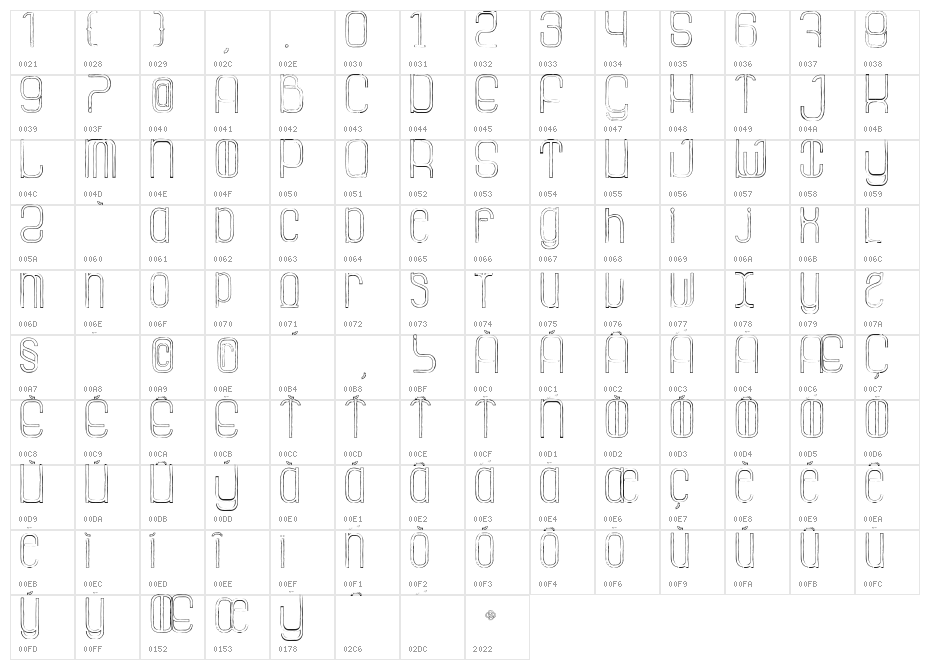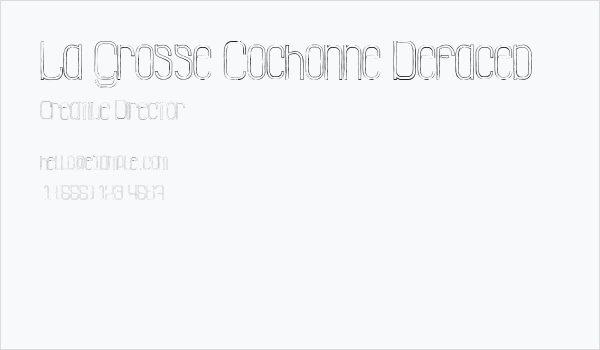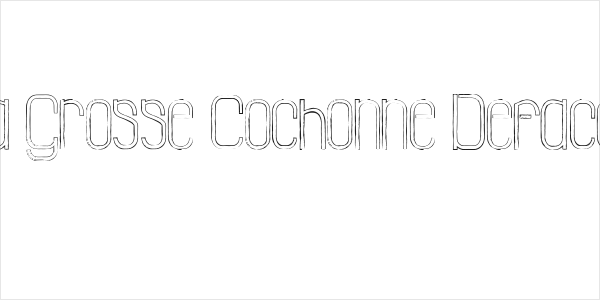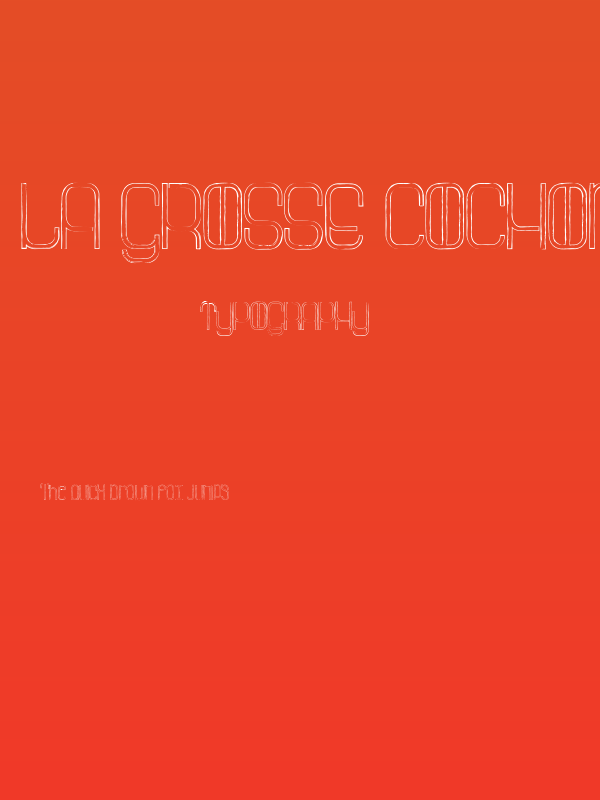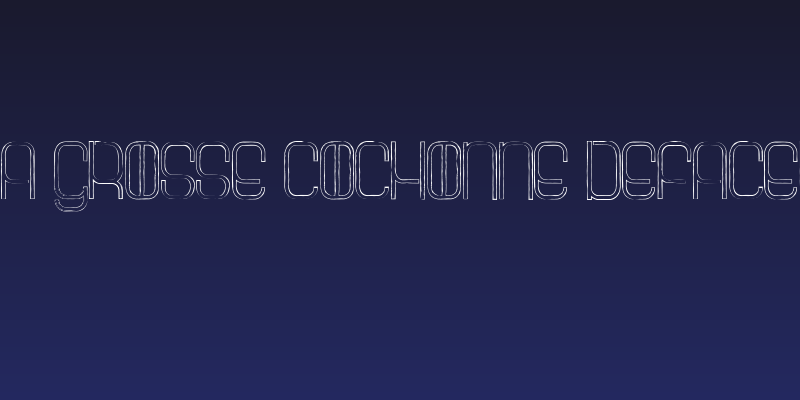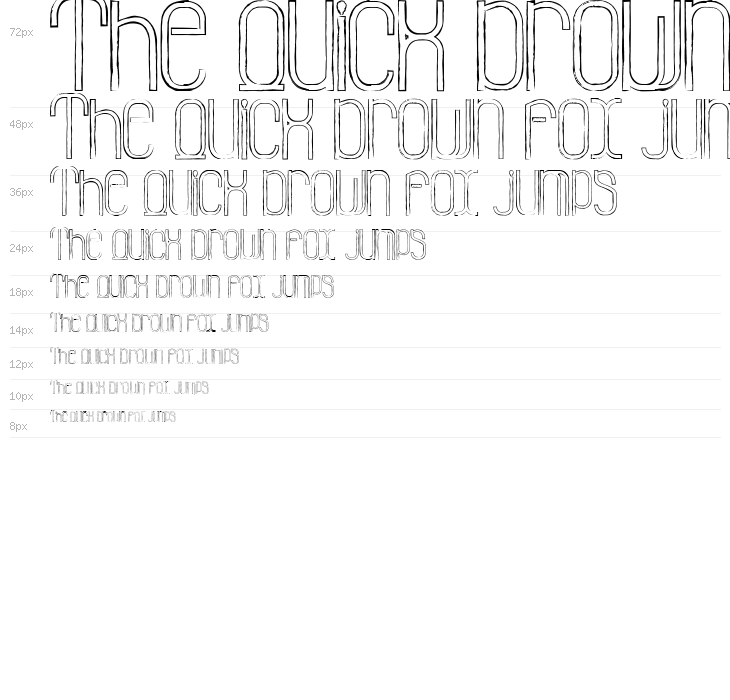
La Grosse Cochonne Defaced Font
La Grosse Cochonne Defaced Description
This font features a unique, defaced style with a modern twist. The characters are outlined with a distressed effect, giving them a worn and textured appearance. The uppercase and lowercase letters maintain a consistent height, creating a uniform look across the alphabet. The numerals and special characters follow the same design, ensuring cohesion throughout. The font's geometric shapes and clean lines are juxtaposed with the rough, eroded edges, making it ideal for projects that require a blend of modernity and vintage appeal.
| Overall Style | Modern, Vintage |
| Proposed Projects | Ideal for branding, posters, album covers, and any design requiring a modern yet vintage aesthetic. |